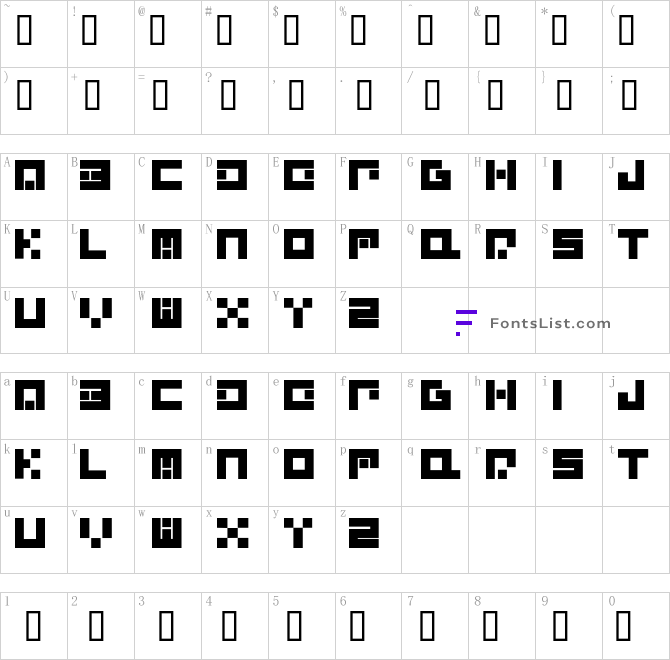
- Font Name:Alpha Quantum Glyphset
AlphaQuantumGlyphset-Regular.otf is a very beautiful artistic font, AlphaQuantumGlyphset-Regular.otf is widely used in the design and printing of various books and pictures,AlphaQuantumGlyphset-Regular.otf has a strong visual impact,AlphaQuantumGlyphset-Regular.otf is a commonly used font in newspapers, magazines and books, and is used in posters, e-commerce Poster design, store design, logo design, font design and other fields.AlphaQuantumGlyphset-Regular.